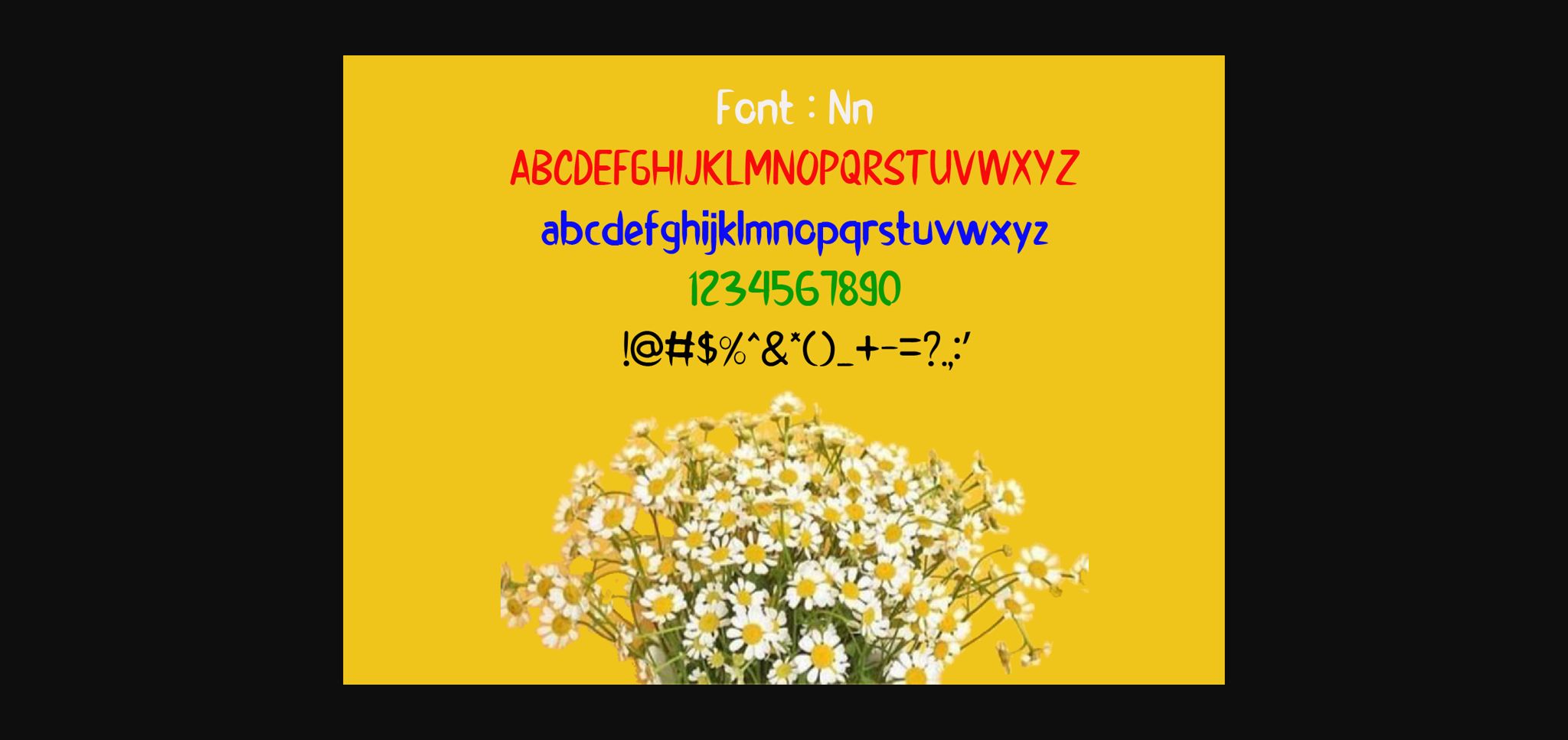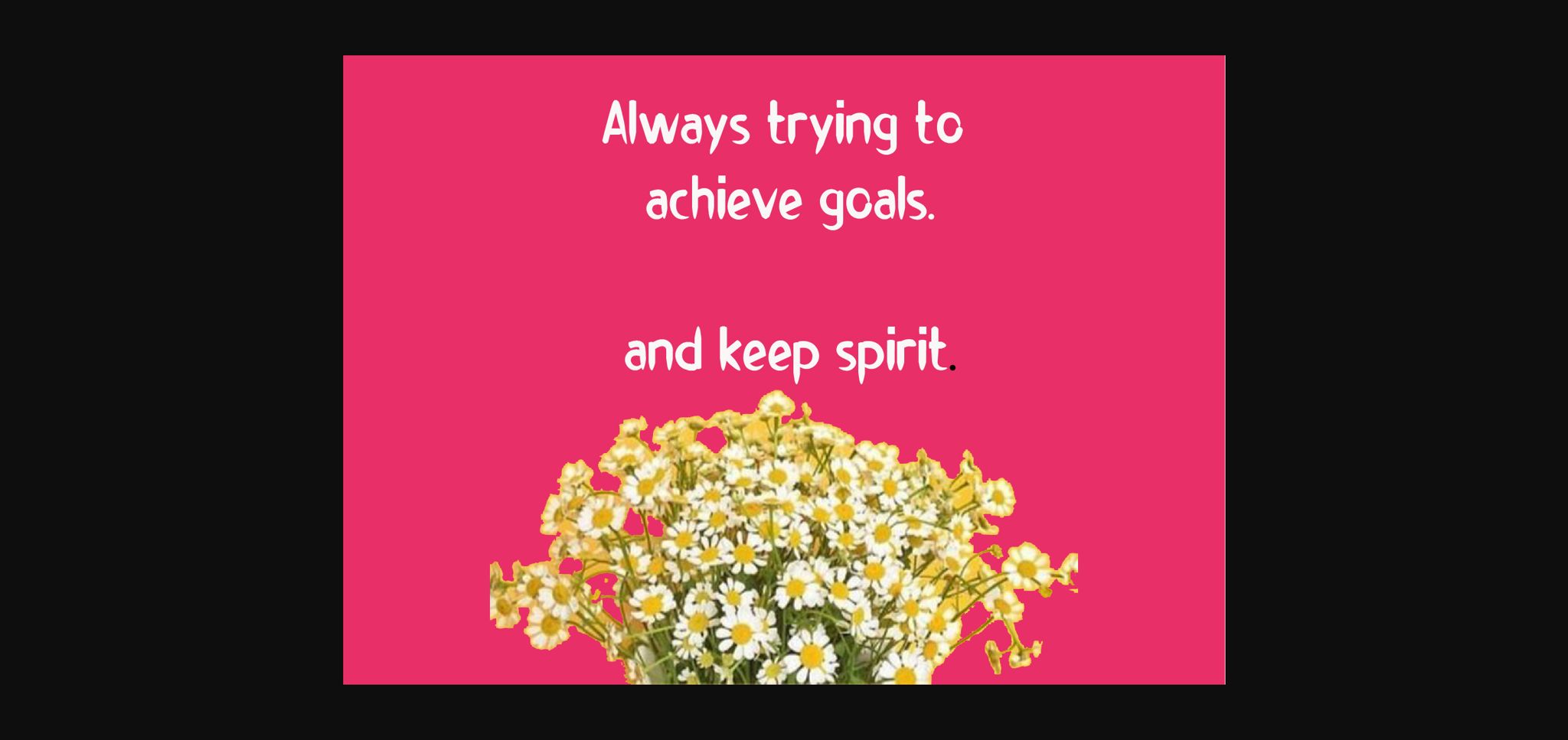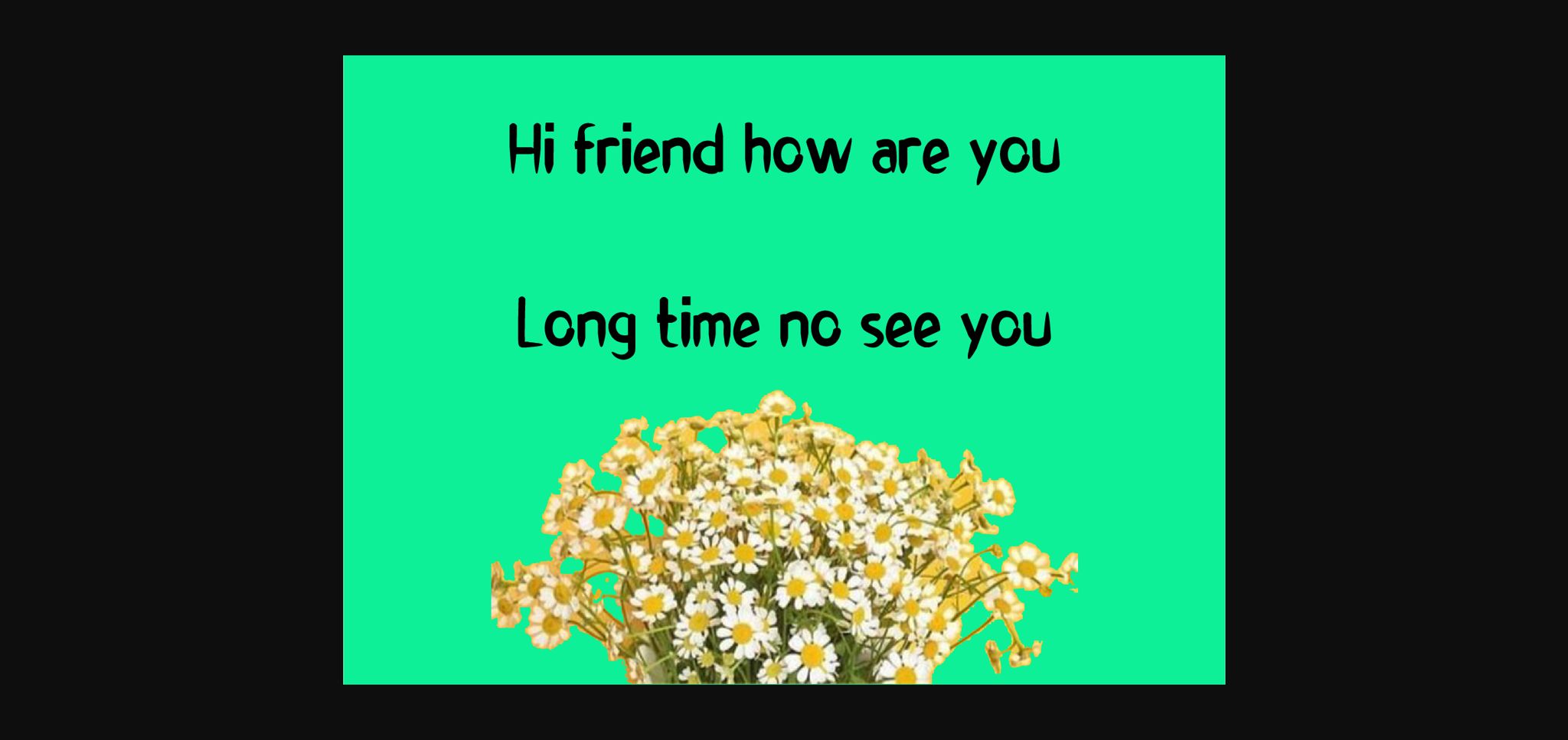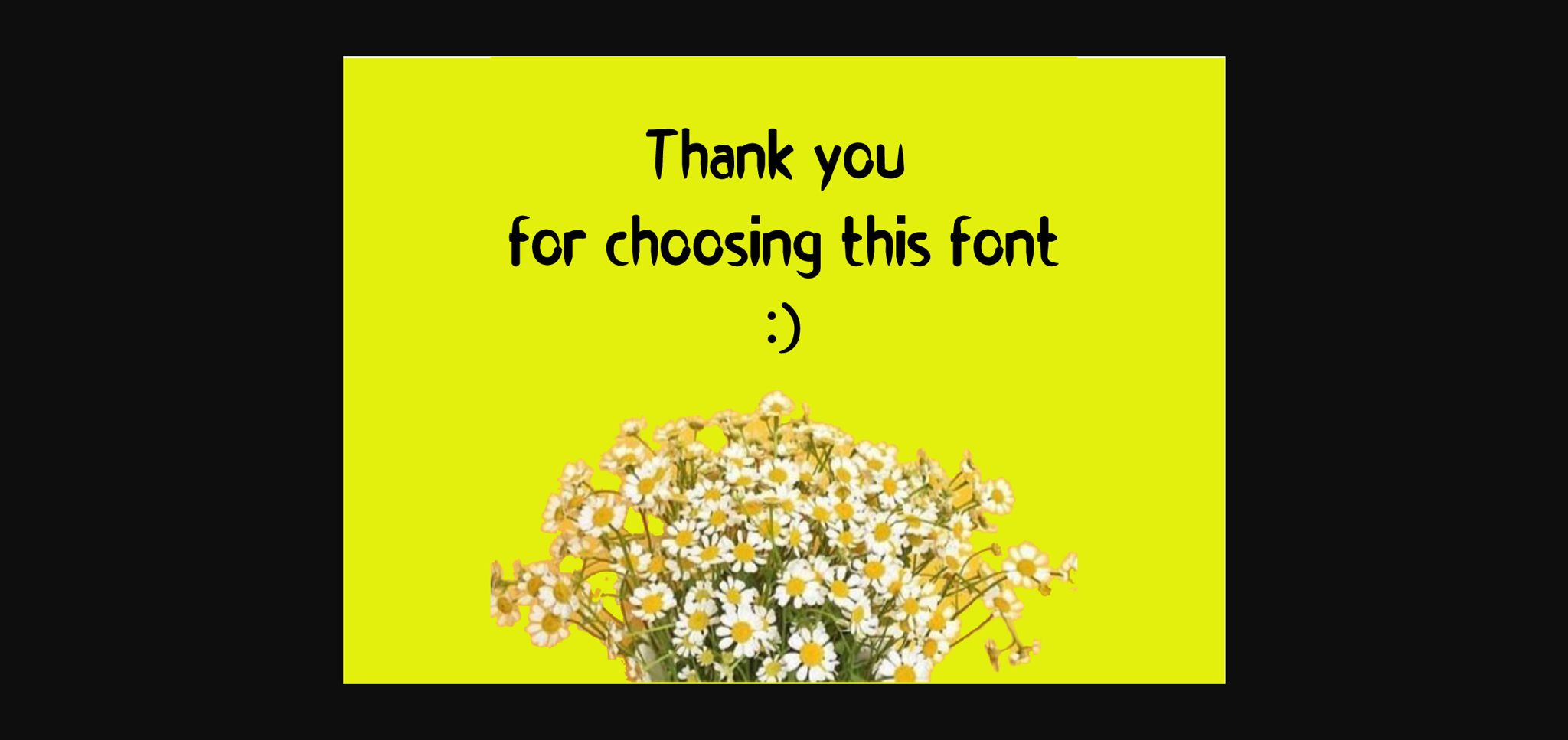
About Nn Font
Nn is a simple and neat sans serif font. It can easily be matched to an incredibly large set of projects, so add it to your creative ideas and notice how it makes them stand out!